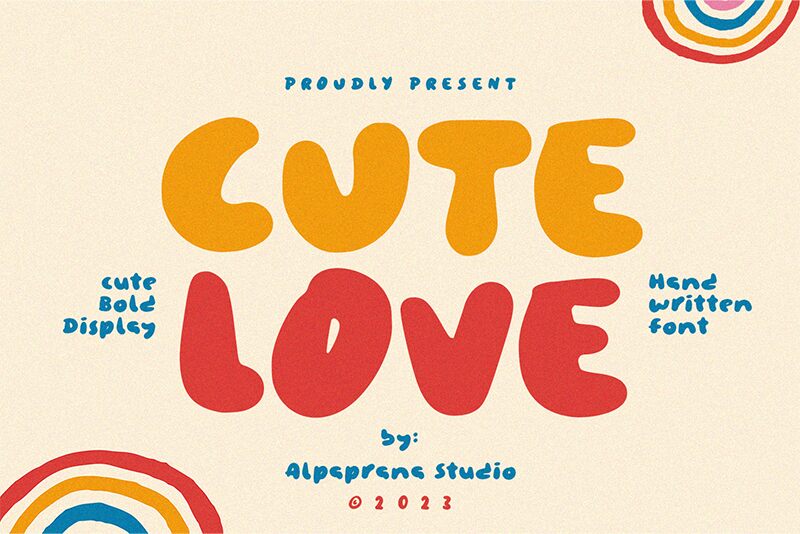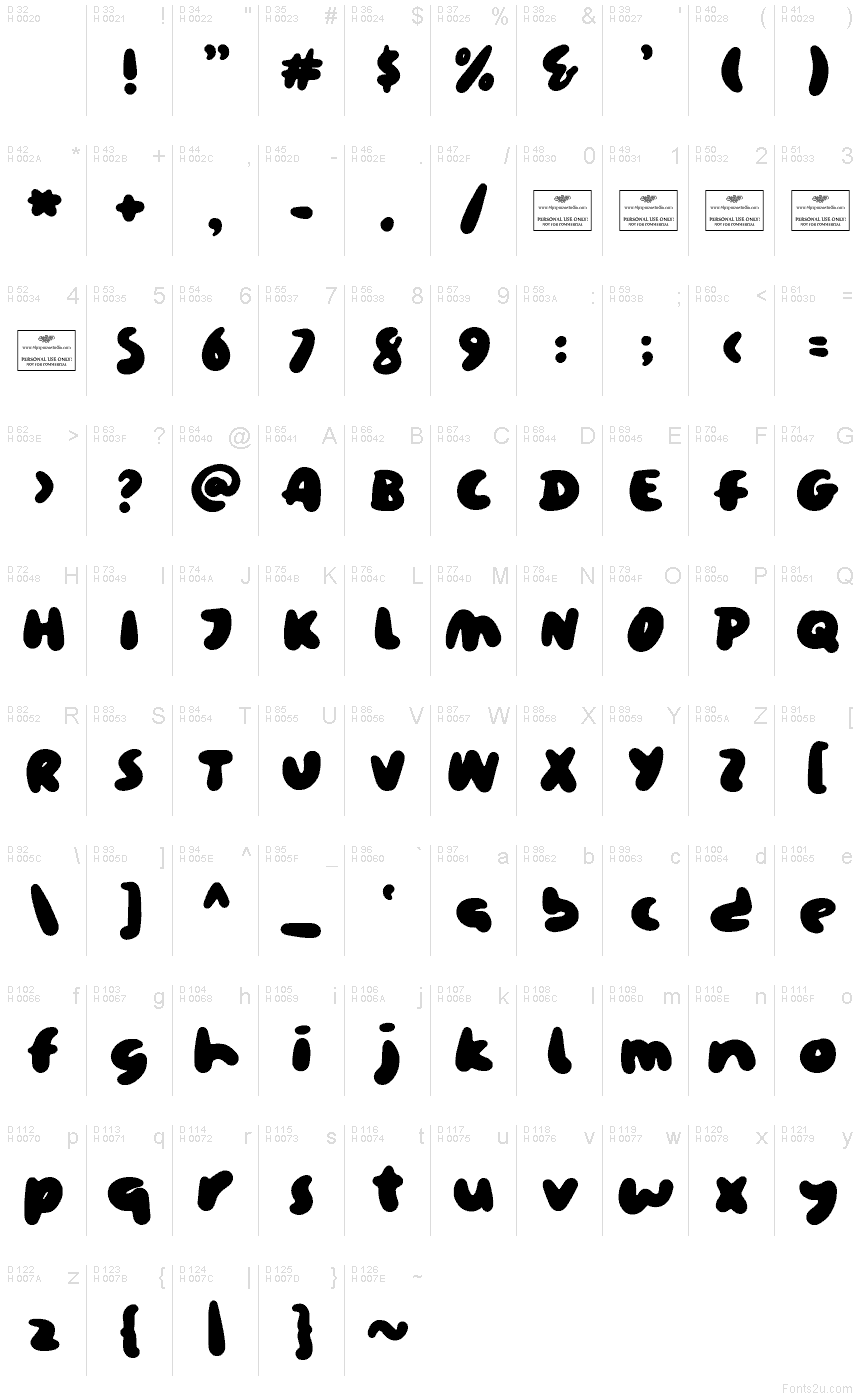
Cute Love
Cute Love font by Alpaprana Studio is a free cartoon display typeface that looks like it was piped out of frosting—thick, squishy, and irresistibly soft. The letters puff and wobble with rounded blobs and gentle curves, giving every word a playful, huggable feel. It’s bold enough to stand on its own in a header, yet friendly and informal, like a handwritten doodle in a notebook.
Using Cute Love, you can instantly warm up kids’ book covers, baby shower invitations, Valentine’s cards, toy packaging, stickers, and playful logos. This free font shines when you let it go big and chunky, then match it with a simple sans serif for any supporting text so the bubbly shapes stay easy to read and center stage.